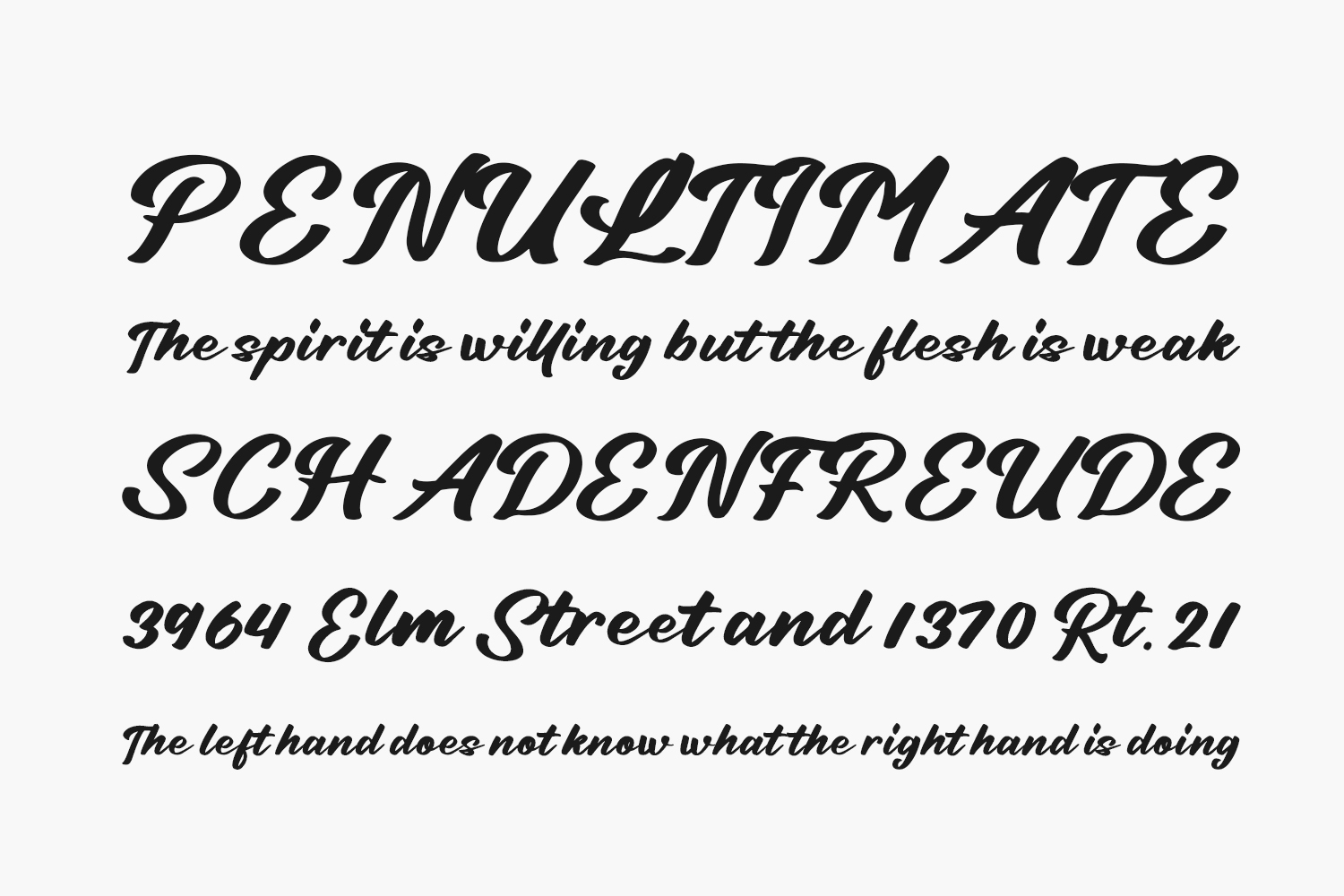
Billionstar Free Font is a stylish and timeless handwritten font. It is the best choice for creating eye-catching logos, branding, and quotes.
Designed by Ribeth Studio